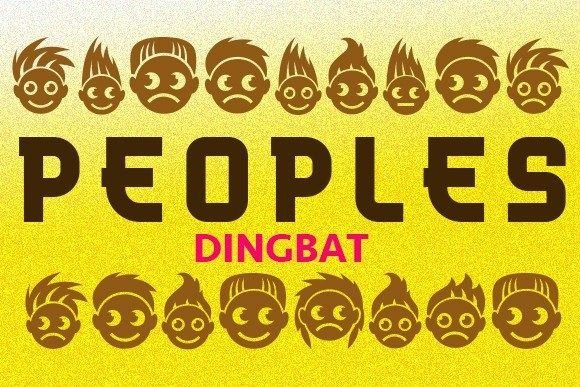
PEOPLES FONT SPECIMEN
Peoples is a captivating dingbat font that adds a unique and eye-catching element to your designs. With its collection of stylish and versatile symbols, this font is perfect for various design projects such as flyers, posters, and headlines.
When using Peoples in your designs, you can explore a range of creative possibilities. The font offers a variety of symbols that can represent different themes, concepts, and ideas. Whether you’re looking for decorative elements, icons, or ornamental details, Peoples has you covered.
Flyers and posters can benefit from the addition of Peoples as it brings visual interest and a touch of creativity to the layout. By incorporating the font’s stylish symbols strategically, you can enhance the overall design and make it more engaging for the audience.
Headlines are another area where Peoples shines. With its distinctive symbols, you can create attention-grabbing titles and headings that stand out. The font’s unique characters add a sense of personality and style to your headlines, making them visually appealing and memorable.
The versatility of Peoples allows you to experiment with different combinations and layouts to find the perfect match for your design project. Whether you’re going for a modern and edgy look or a more playful and whimsical vibe, this dingbat font provides the tools you need to create stunning visuals.
Embrace the creativity and visual impact that Peoples brings to your designs. Let its captivating symbols take center stage on your flyers, posters, and headlines, captivating your audience and leaving a lasting impression.